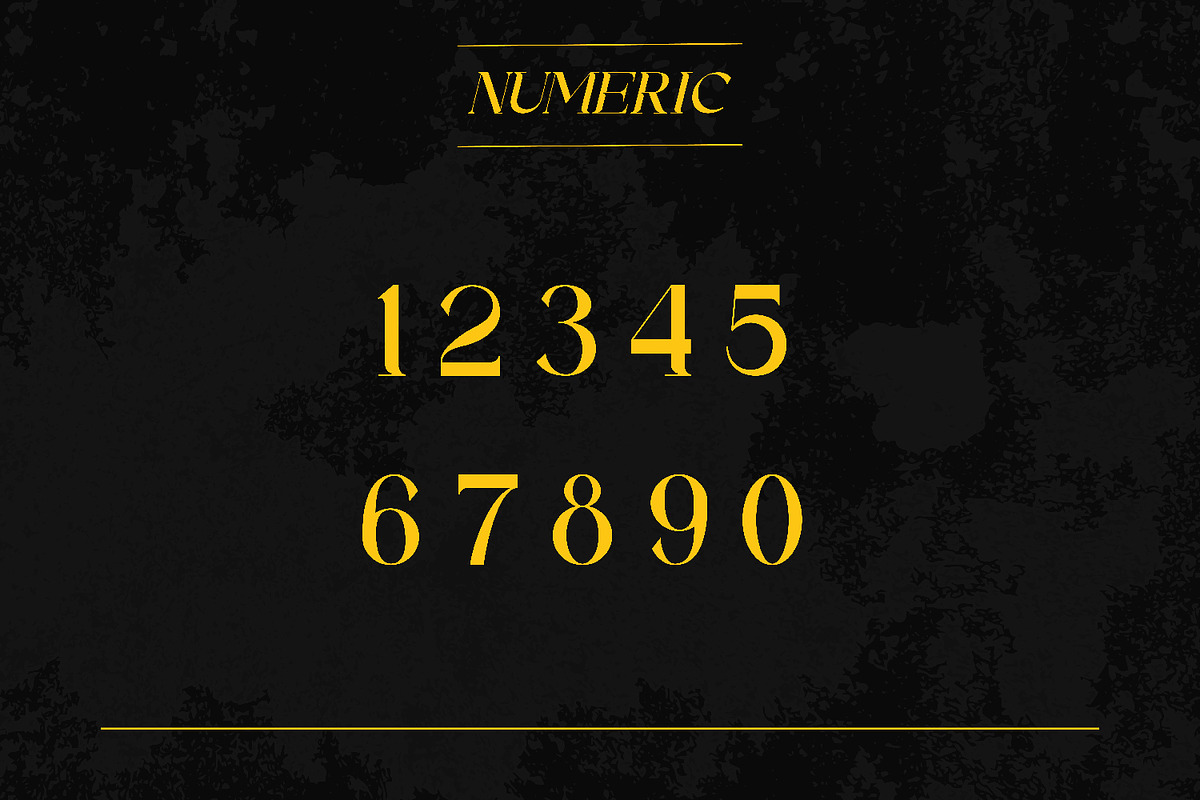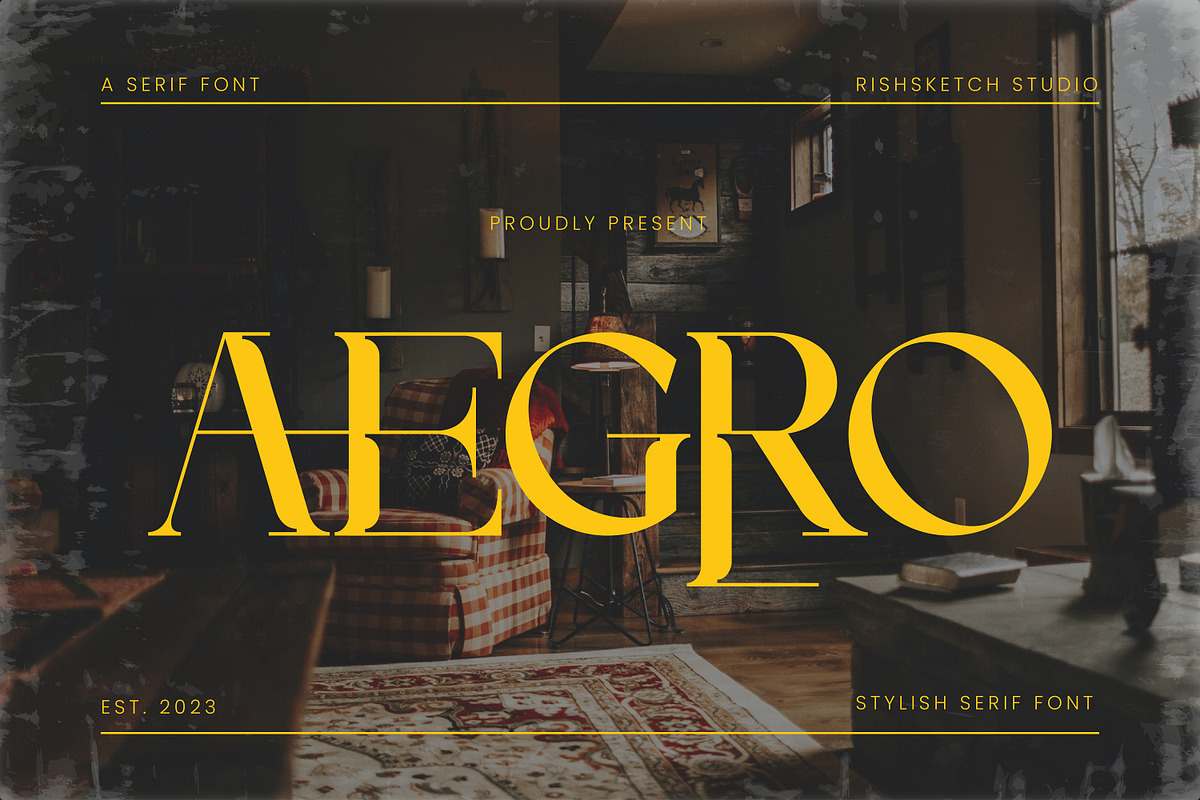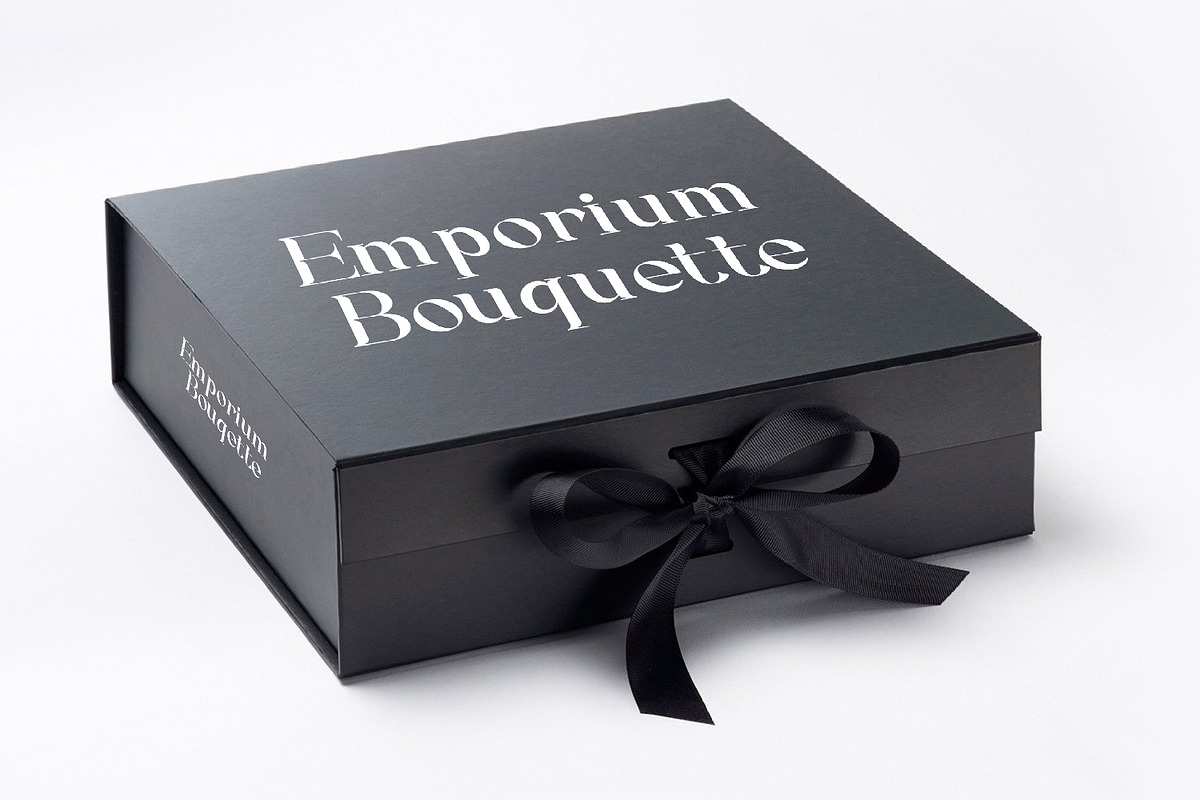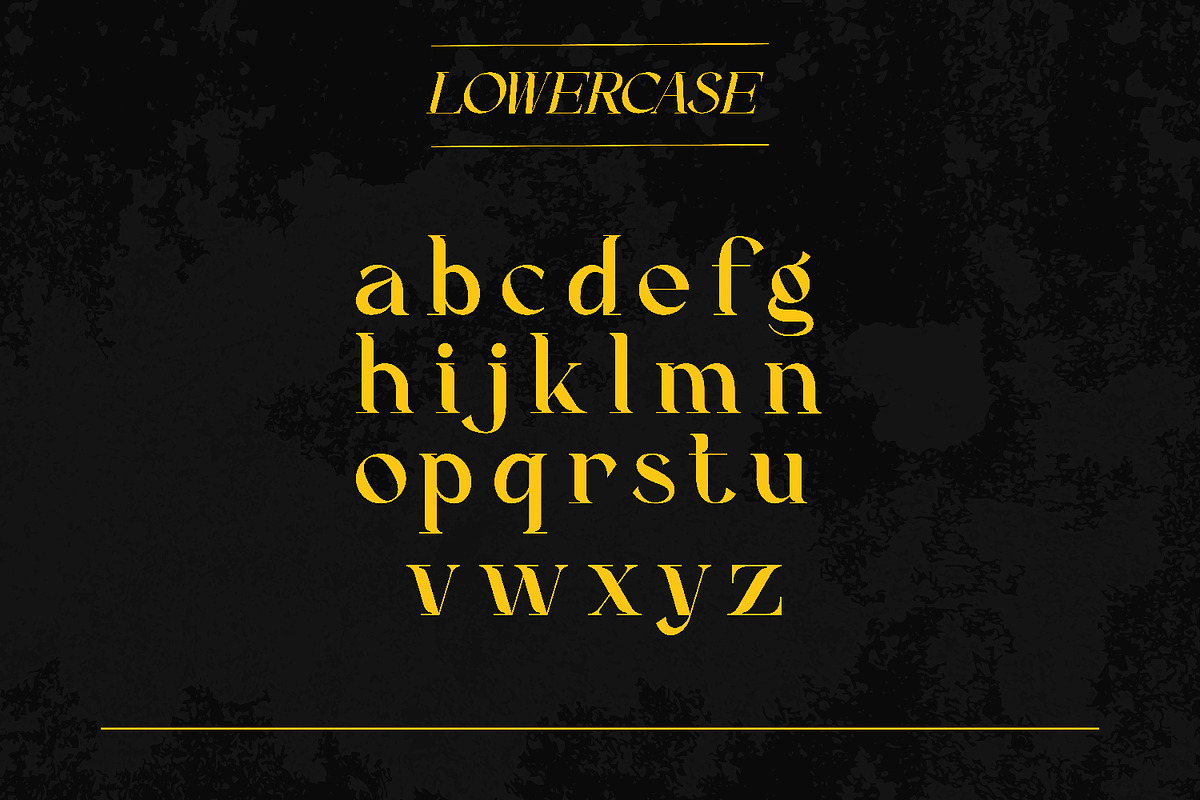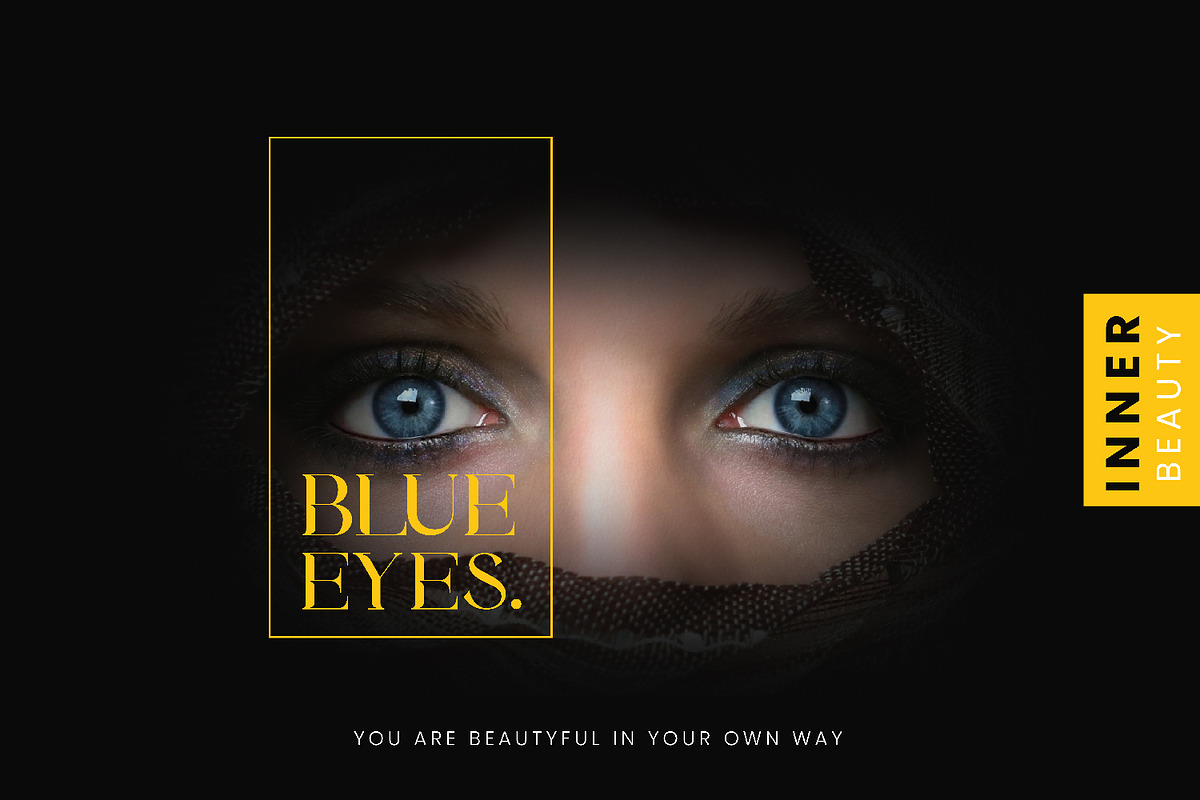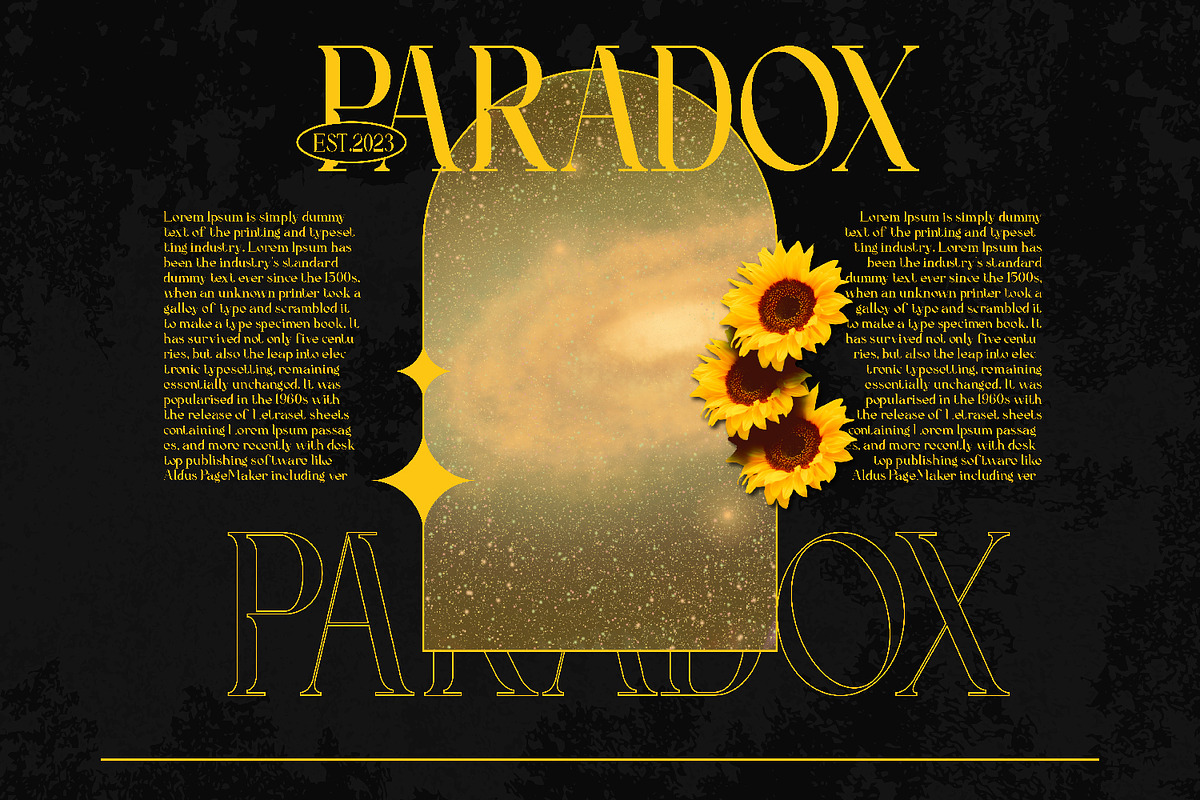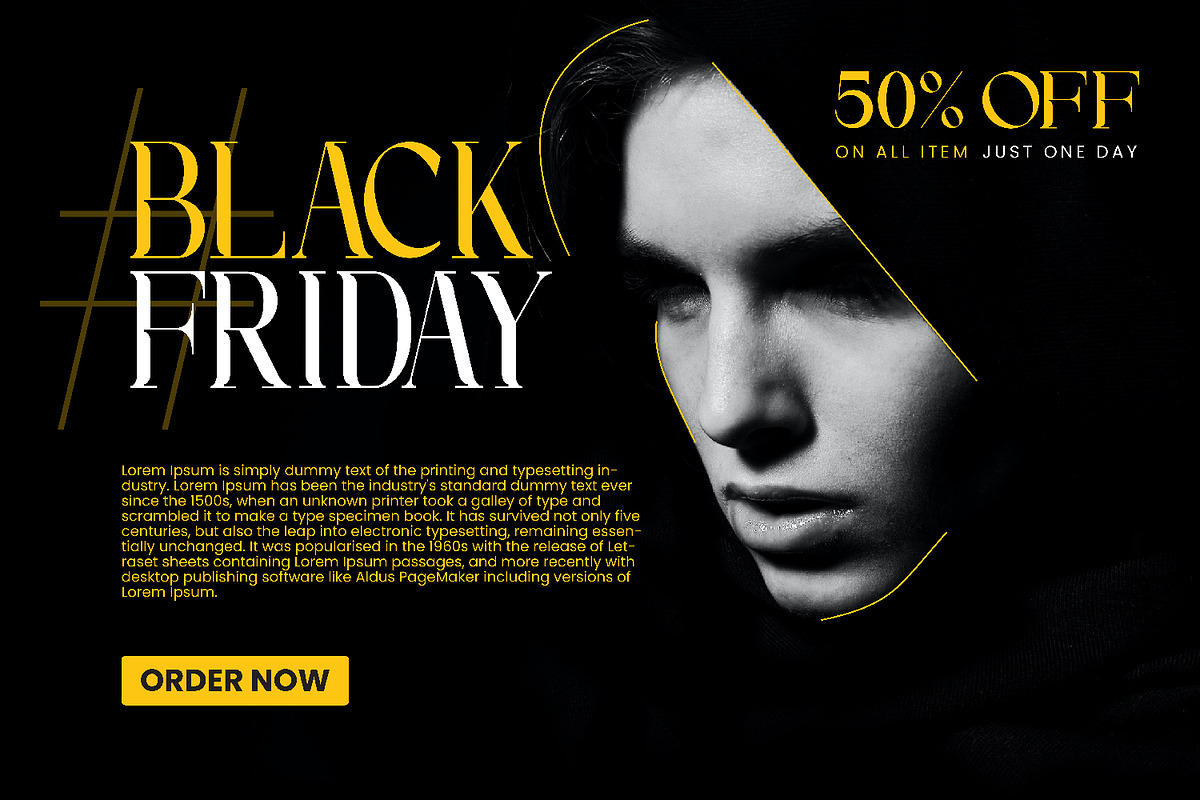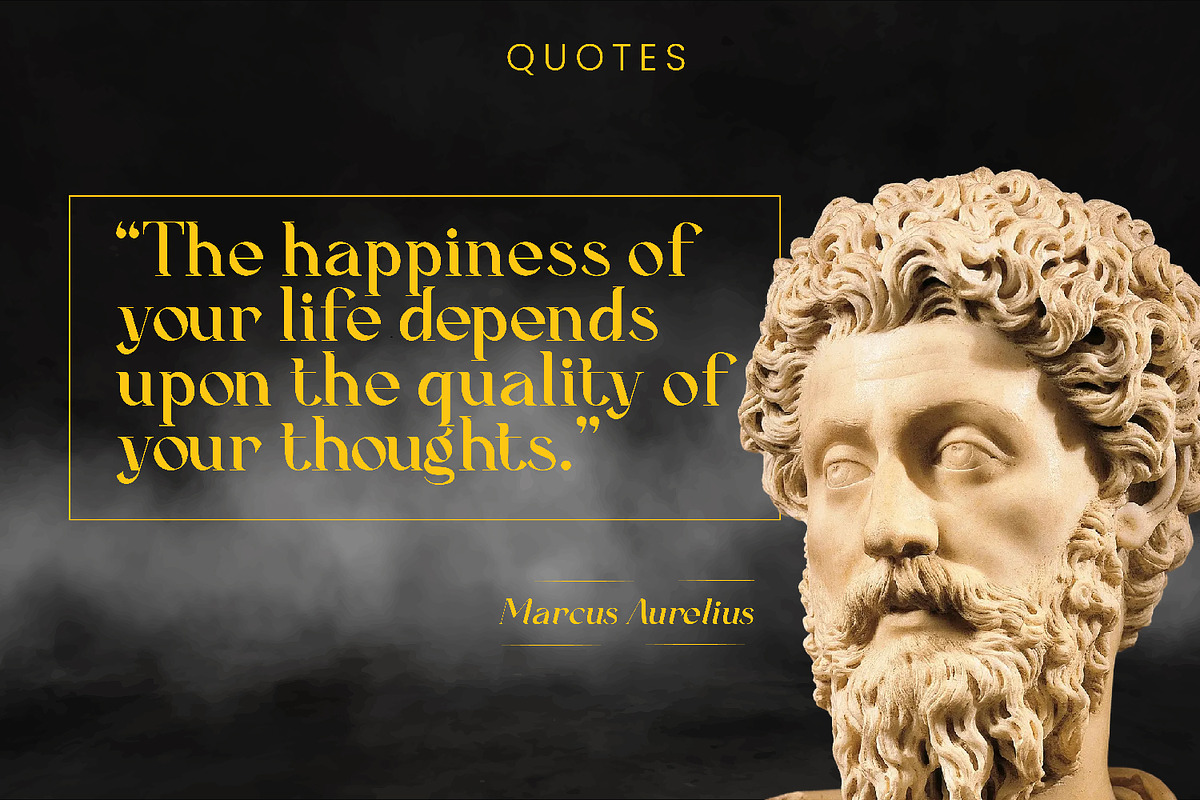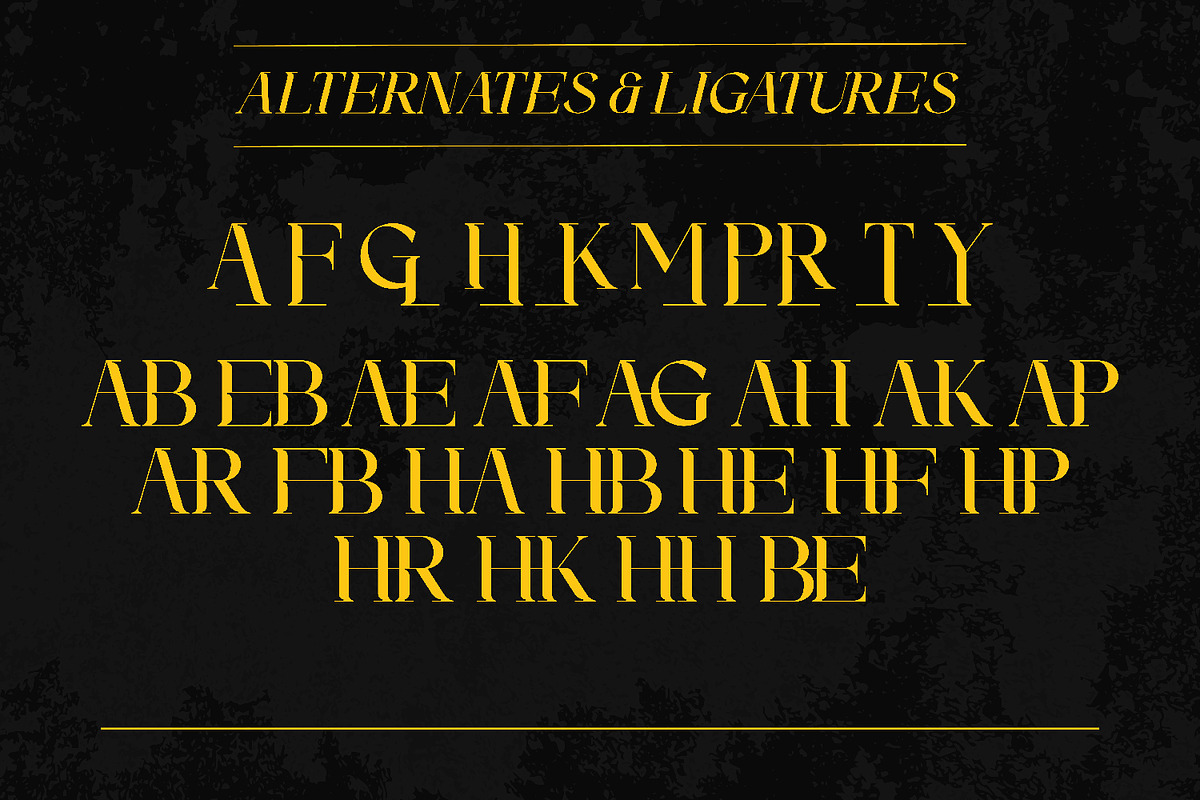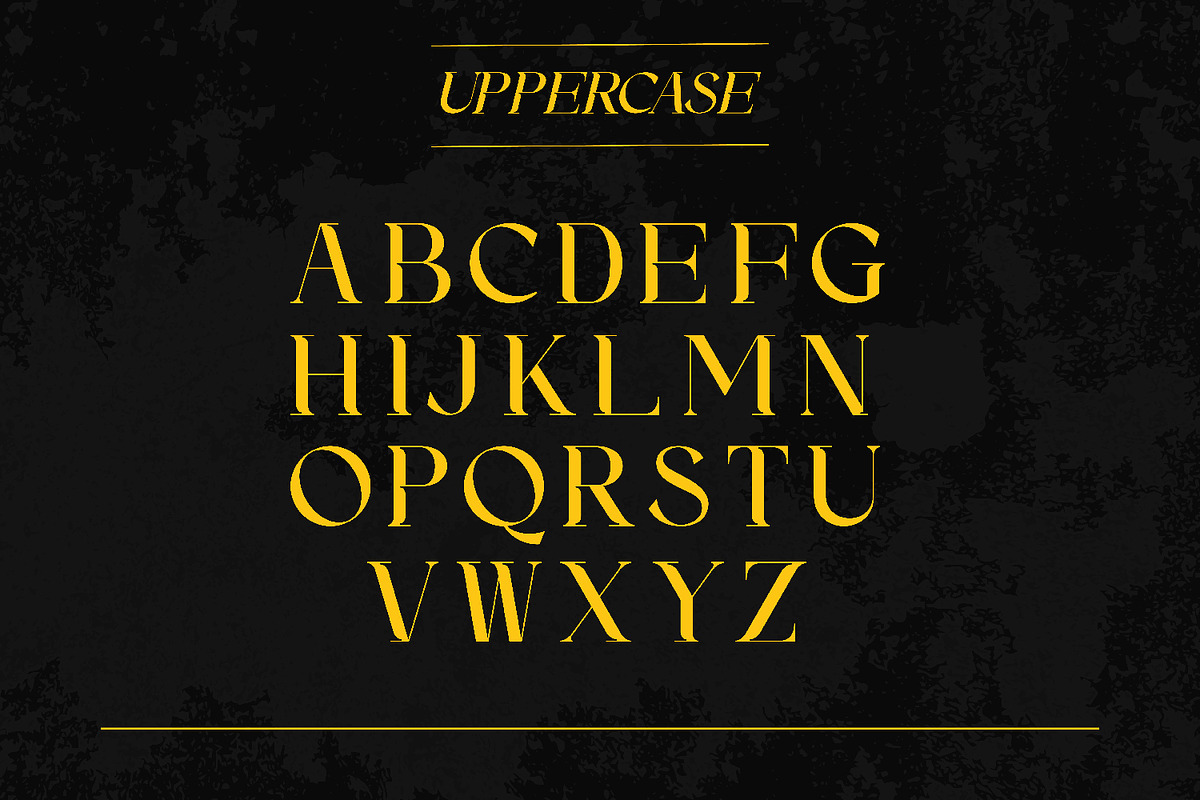
Aegro
Aegro - Modern Stylish Serif Font, from Rishsketch Studios, is a premium Serif Font, perfect for any project that requires a distinctive, and premium feel.
Ligature, Alternate & Multilingu